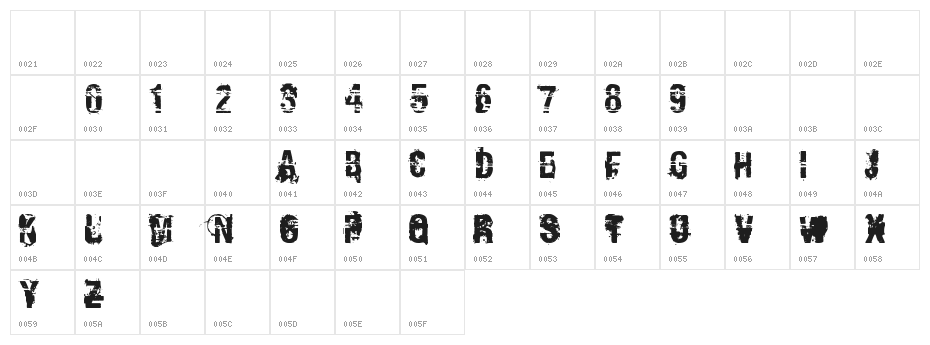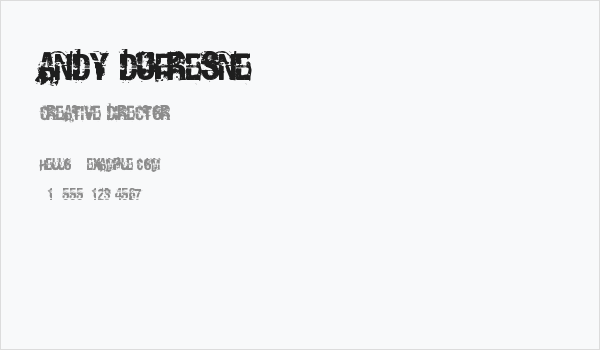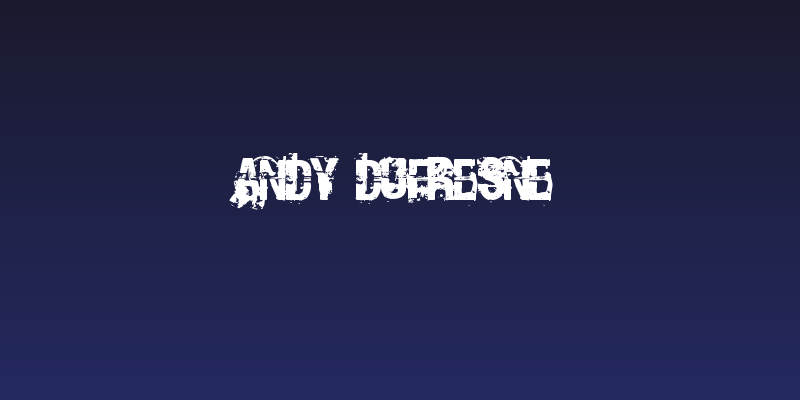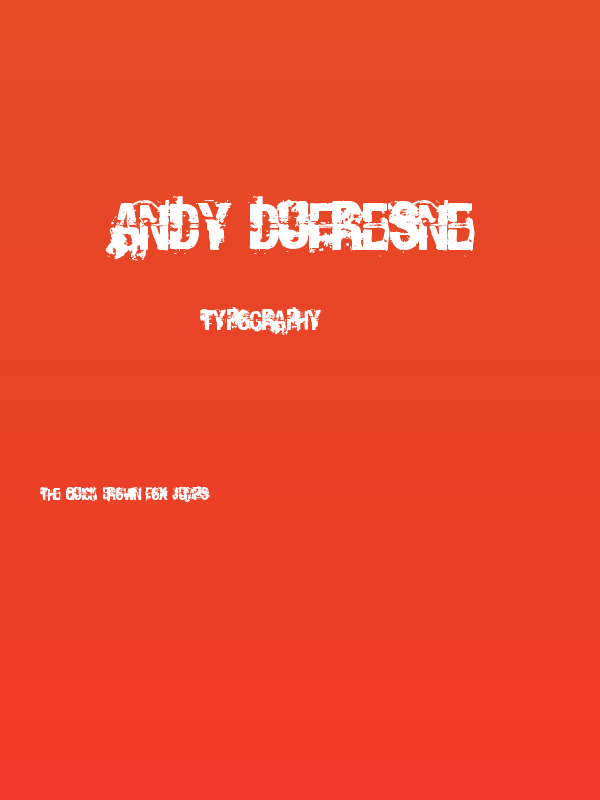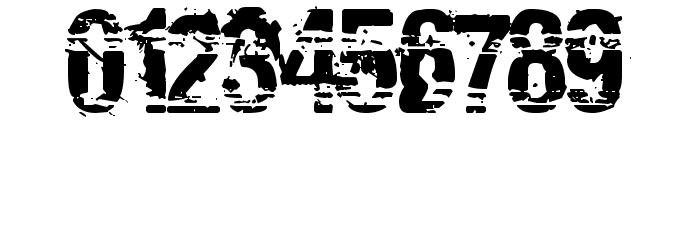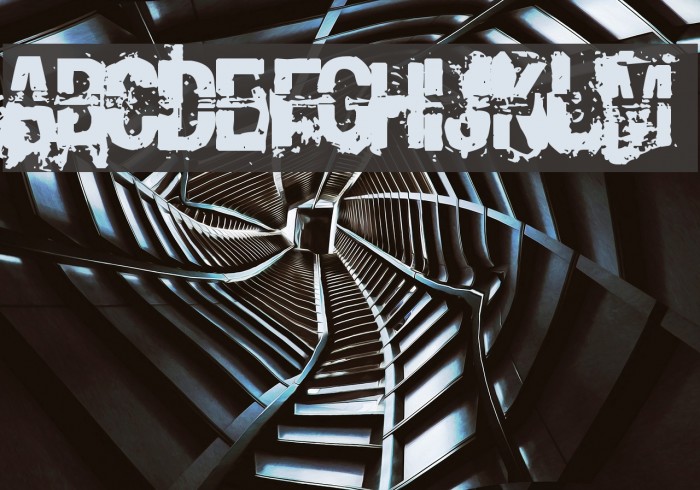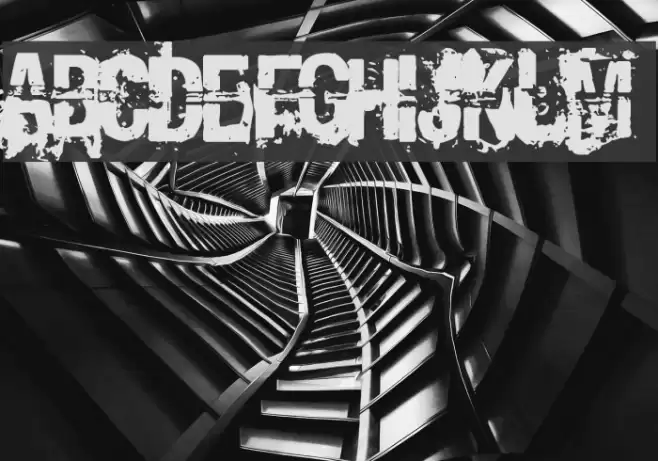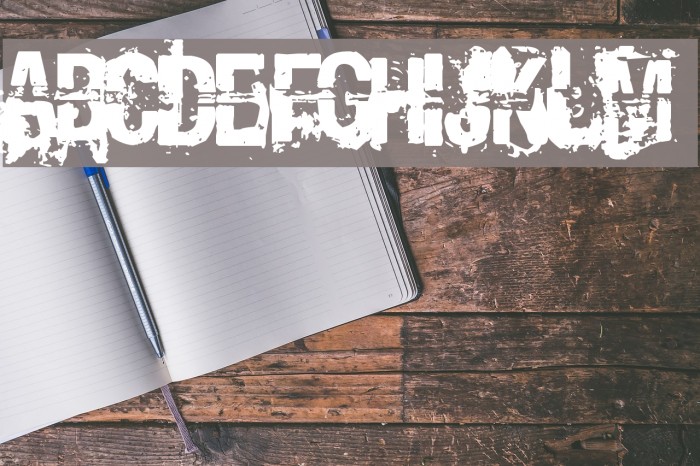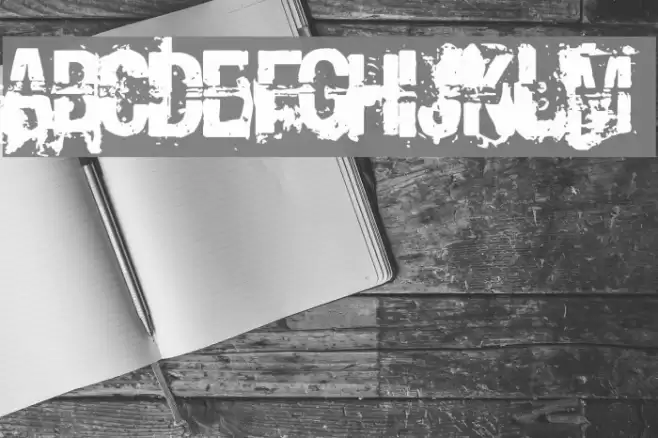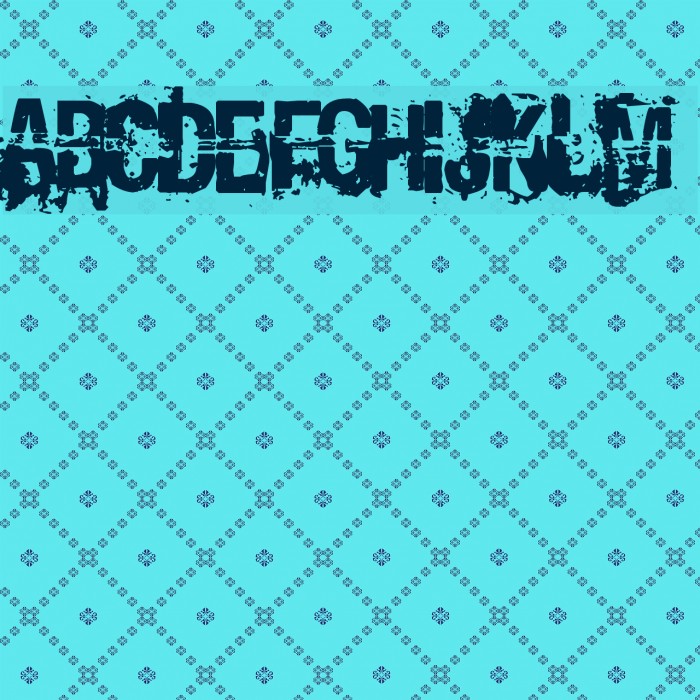
Andy Dufresne Font
Andy Dufresne Description
This font exhibits a distressed and grunge style, characterized by its rough, textured appearance. The letters are bold and uppercase, with a heavy emphasis on a worn, eroded look that gives it a unique, edgy feel. The irregularities in the letterforms create a sense of chaos and movement, making it ideal for projects that require a raw, urban aesthetic. The font's design suggests a sense of rebellion and nonconformity, with its bold strokes and uneven edges. It captures attention with its striking, unconventional style, making it suitable for creative and artistic endeavors.
| Overall Style | Grunge, Urban, Edgy |
| Use Case | Logos, Headlines, Posters |
| Proposed Projects | Album covers, streetwear branding, posters, and urban-themed designs. |